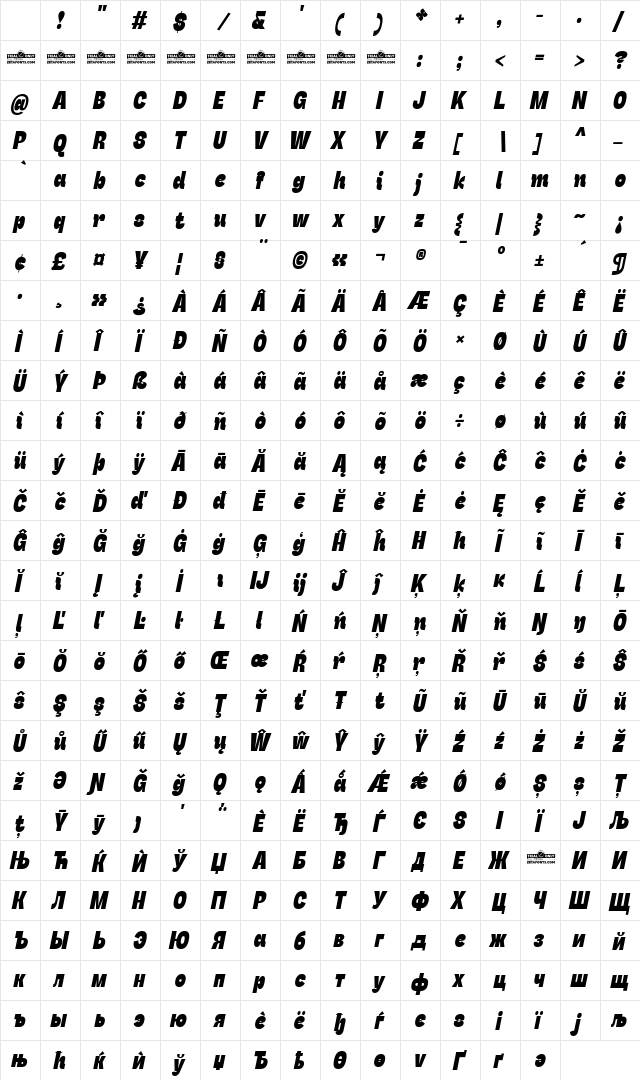
Stinger Slim Trial is a composed and adaptable typeface that performs quietly and consistently across a wide range of design contexts. The slanted form adds forward momentum and visual energy.
Pro Tip: Use Stinger Slim Trial for emphasis, pull quotes, and subheadings where its slanted energy can add rhythm to the layout.